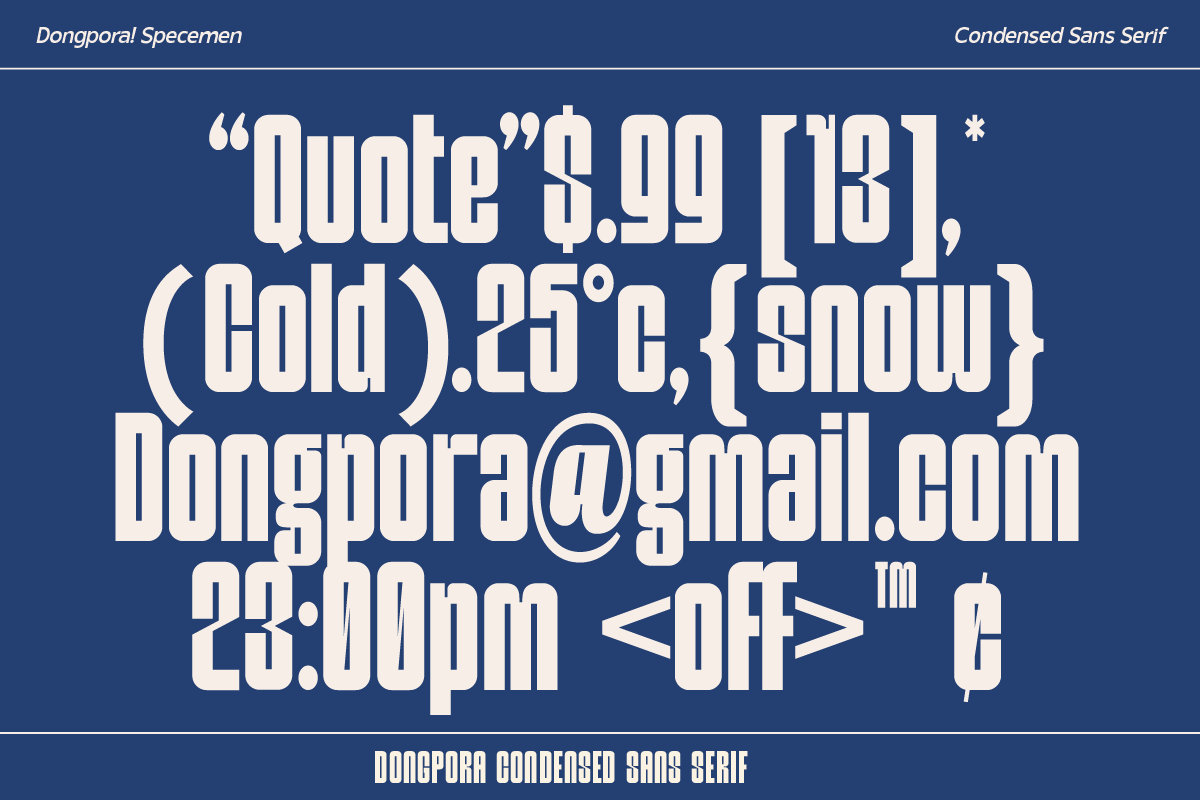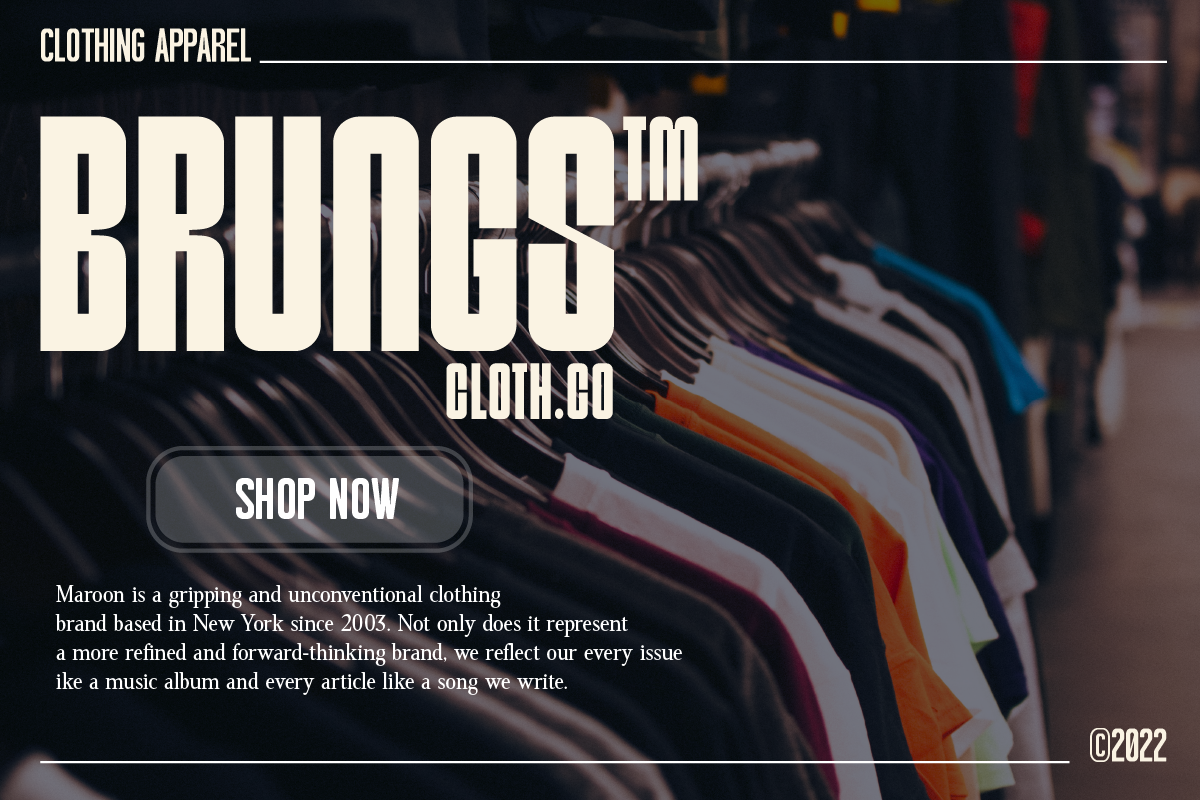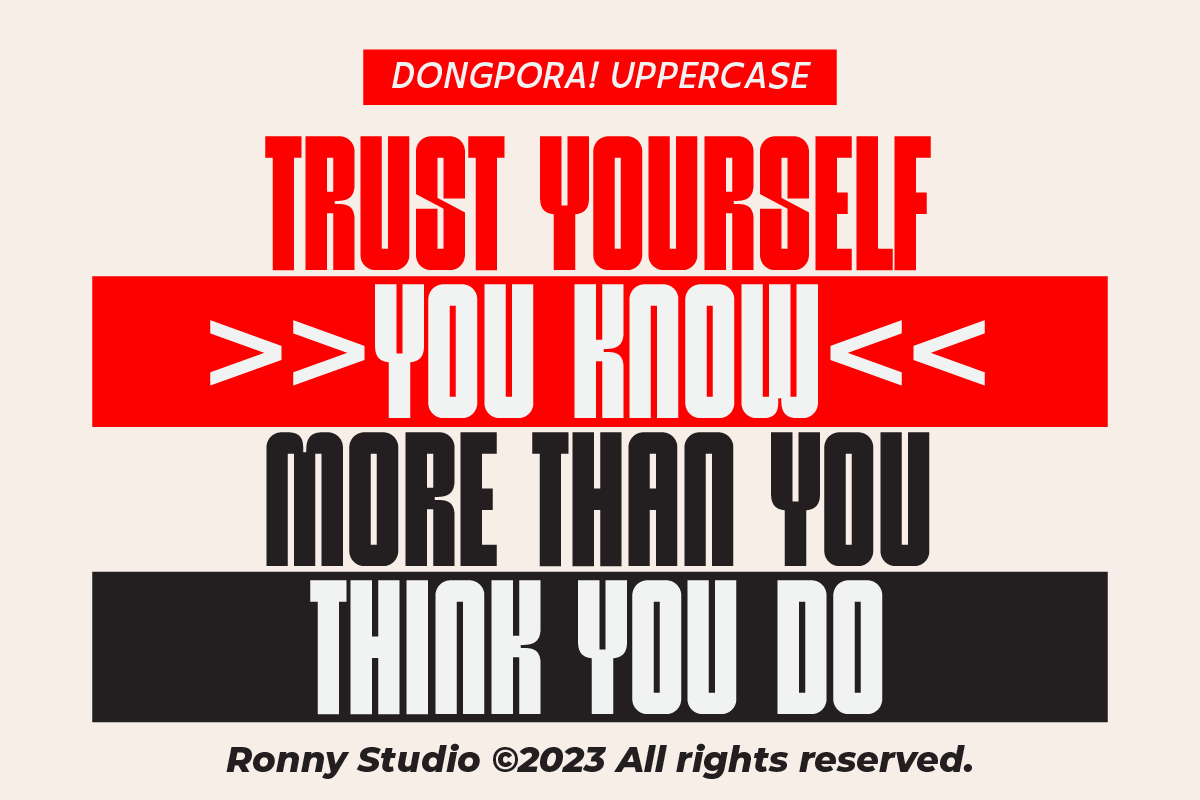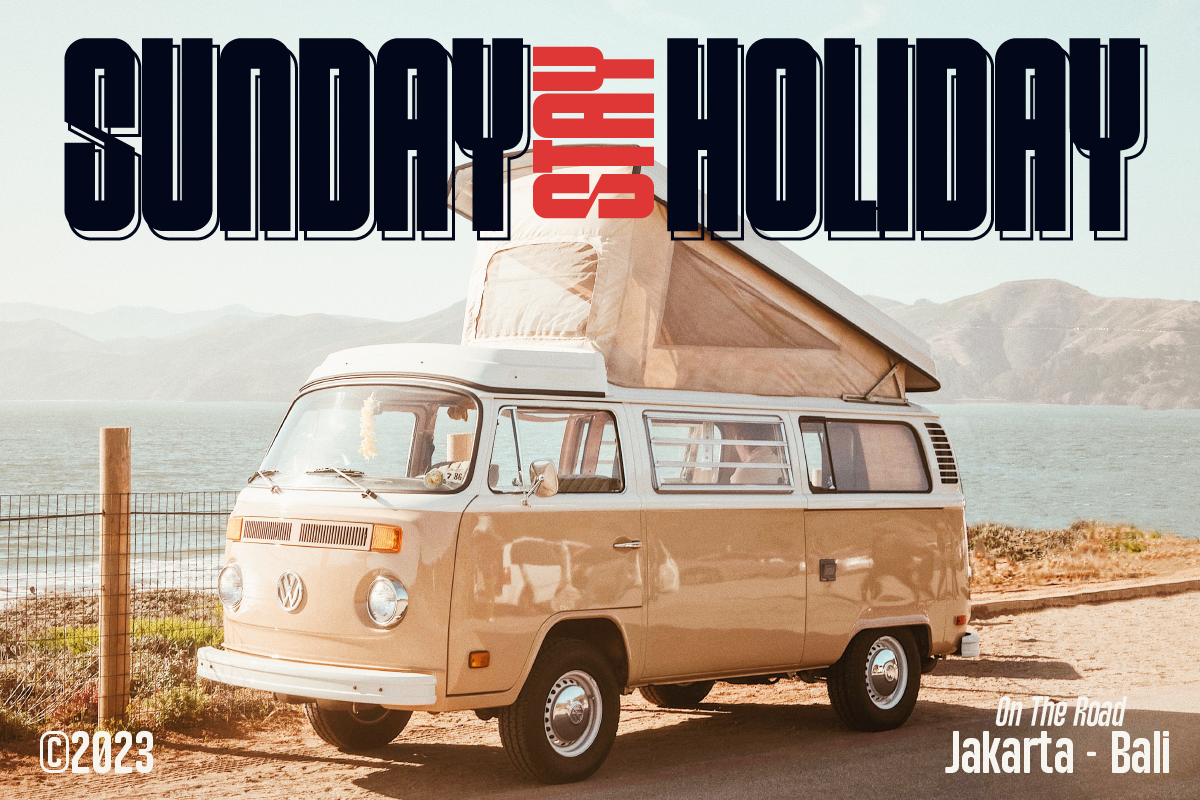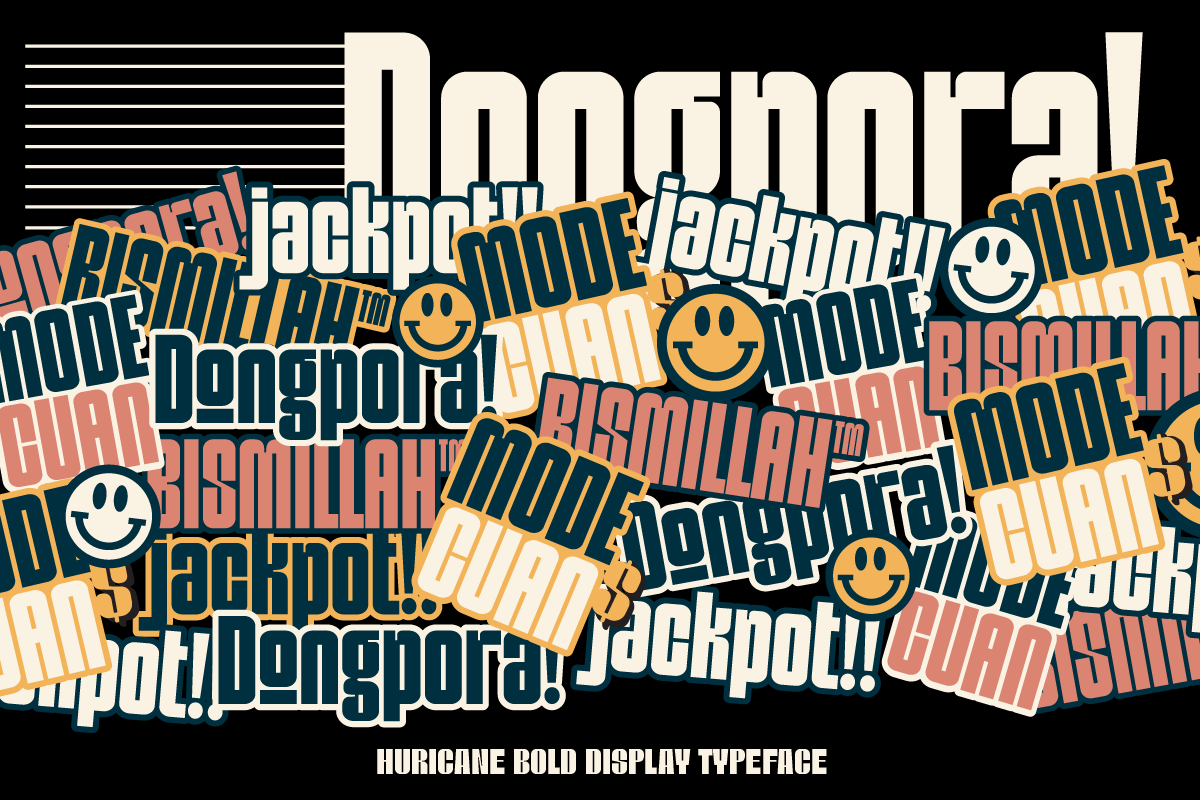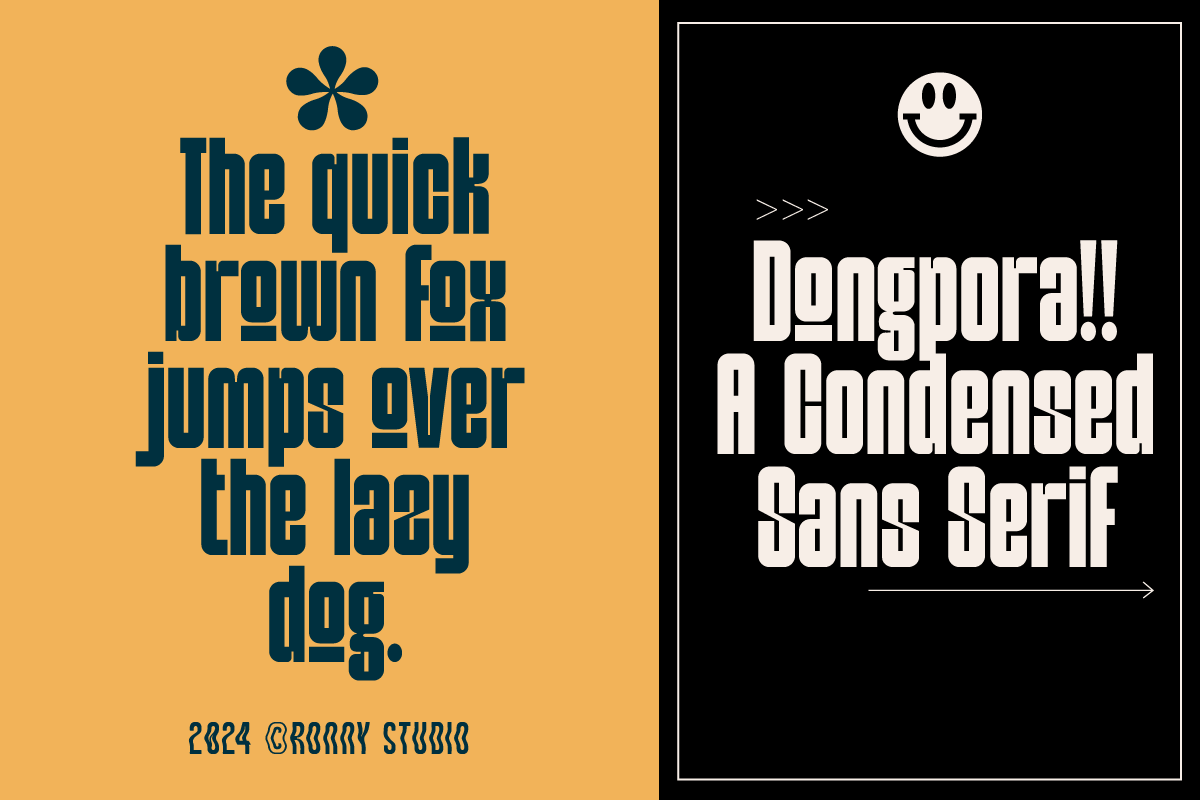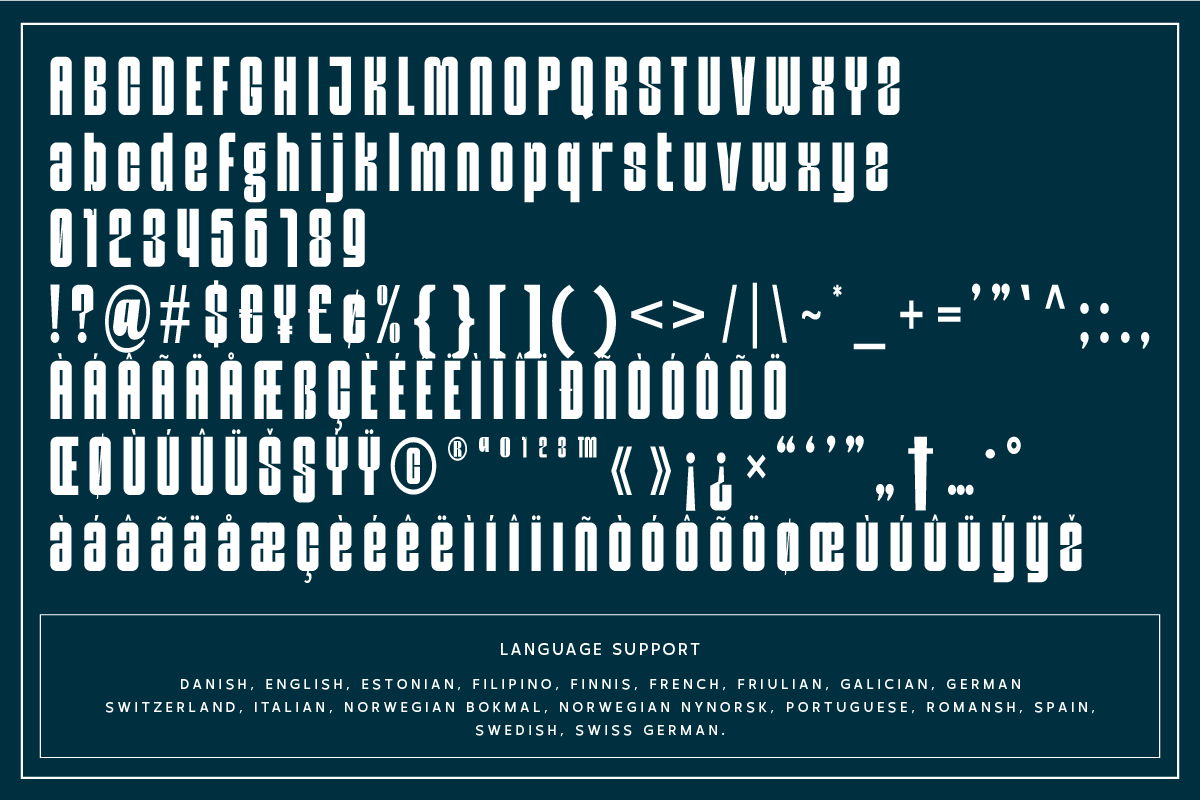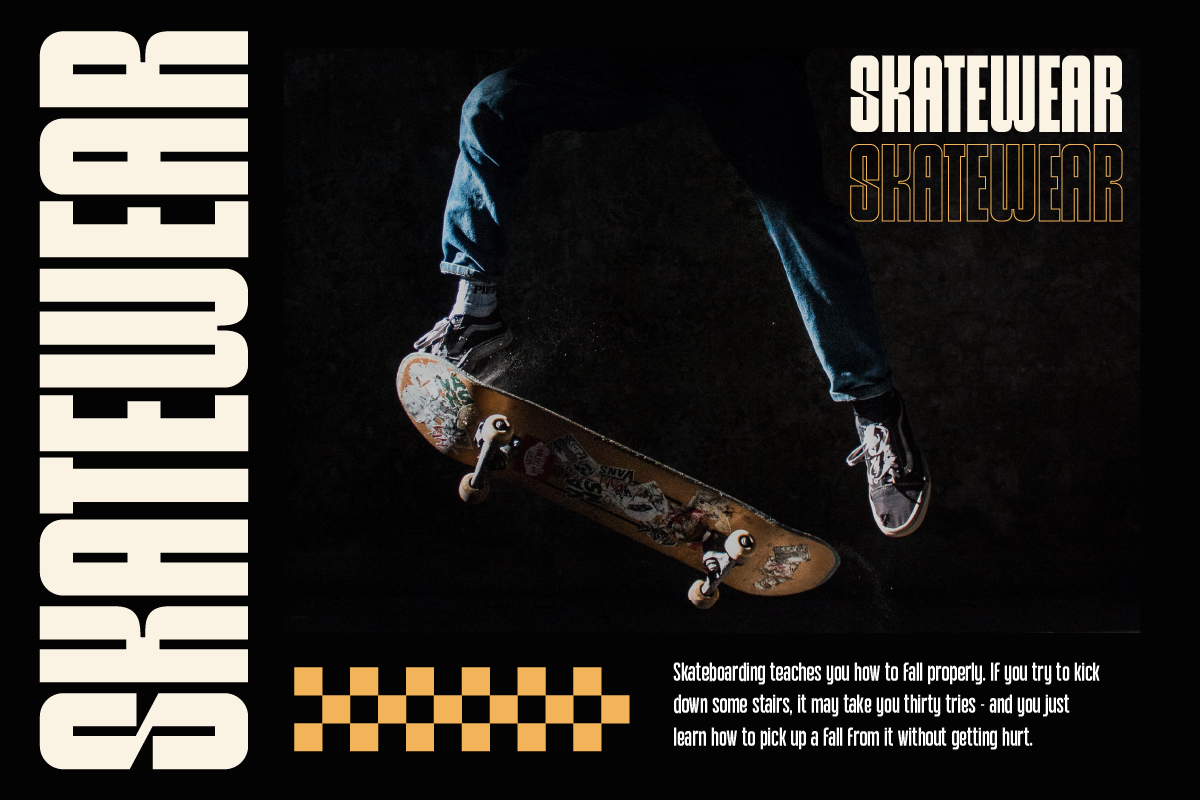
Dongpora Bold & Condensed Sans Serif
Dongpora – A Modern Condensed Sans Serif with a Bold Statement 💥
Introducing Dongpora, a bold and condensed sans serif designed for high-impact branding, editorial layouts, and eye-catching headlines. With its sharp, modern, and slightly rebellious aesthetic, this typeface is perfect for projects that demand attitude and confidence.
🔠 Key Features:
✅ Condensed & Bold – Ideal for posters, logos, and urban designs.
✅ Unique Character Set – Includes alternates, ligatures, and stylistic features.
✅ Modern & Edgy – A contemporary font with a strong presence.
✅ Multilingual Support – Covers multiple languages for global usability.
🚀 Perfect for: Streetwear Branding, Music Covers, Editorial Layouts, Posters, and More!
💡 Create a Strong Visual Impact with Dongpora – The Font that Stands Out!